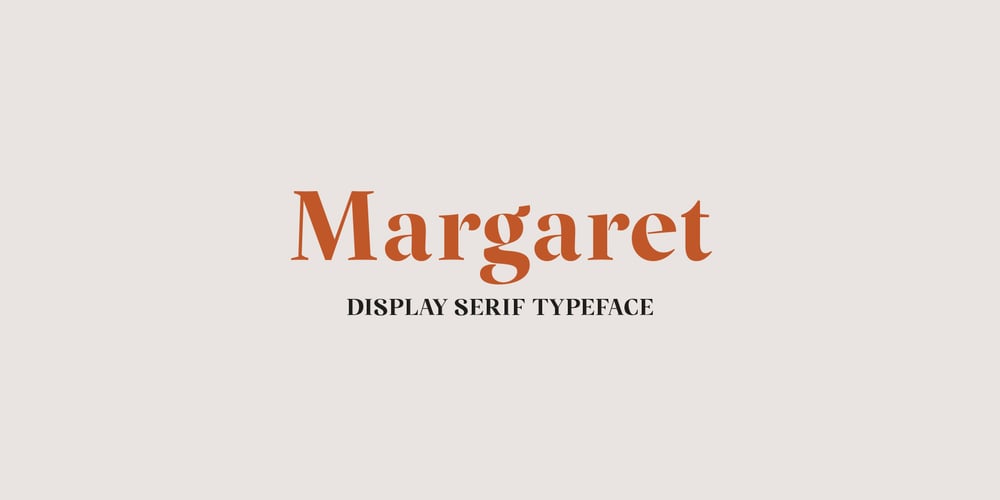
Margaret Fragile Font Family was designed by Kacper Janusiak and published by K94 Studio. Margaret Fragile contains 1 styles and family package options. Margaret Fragile is a unique display serif typeface. The typeface has a beautiful two-piece design and elegant weight contrasts.